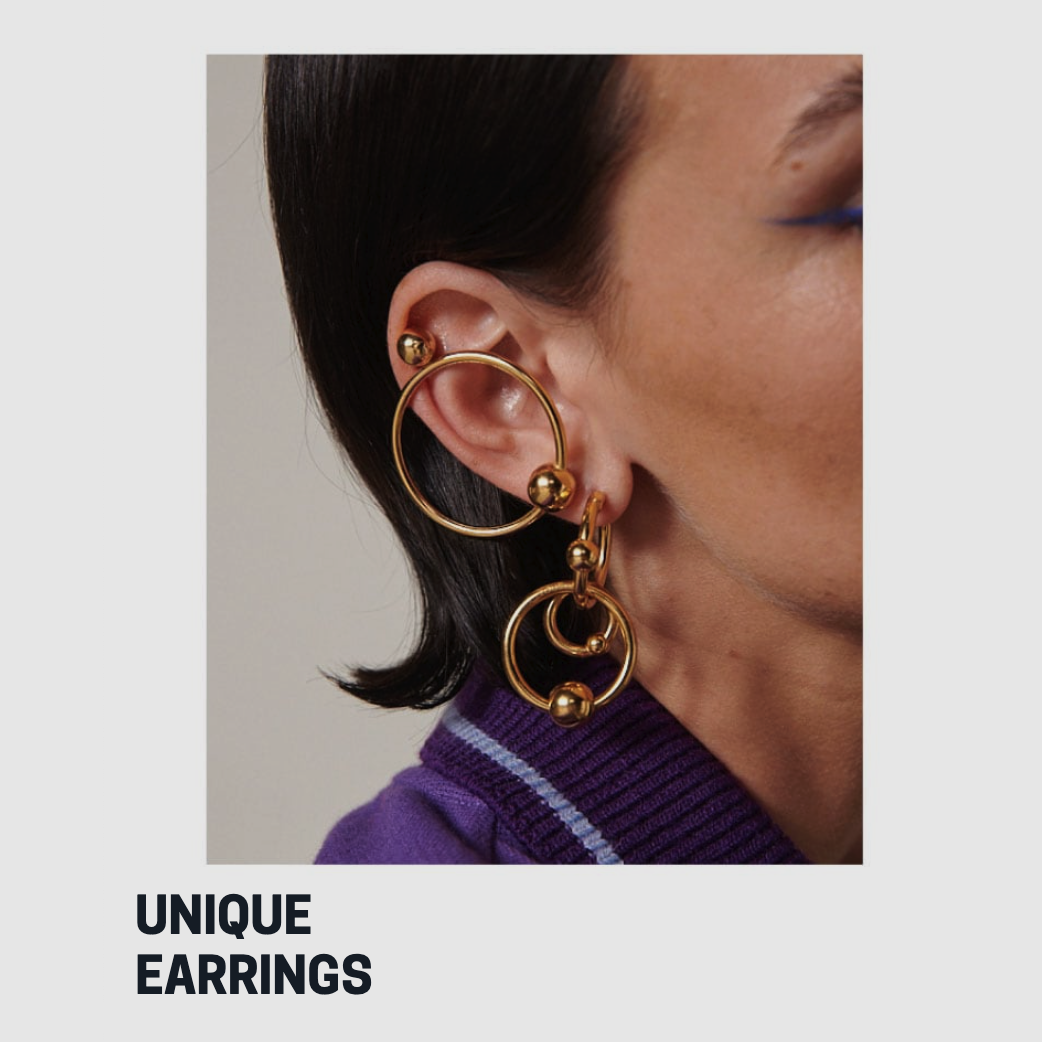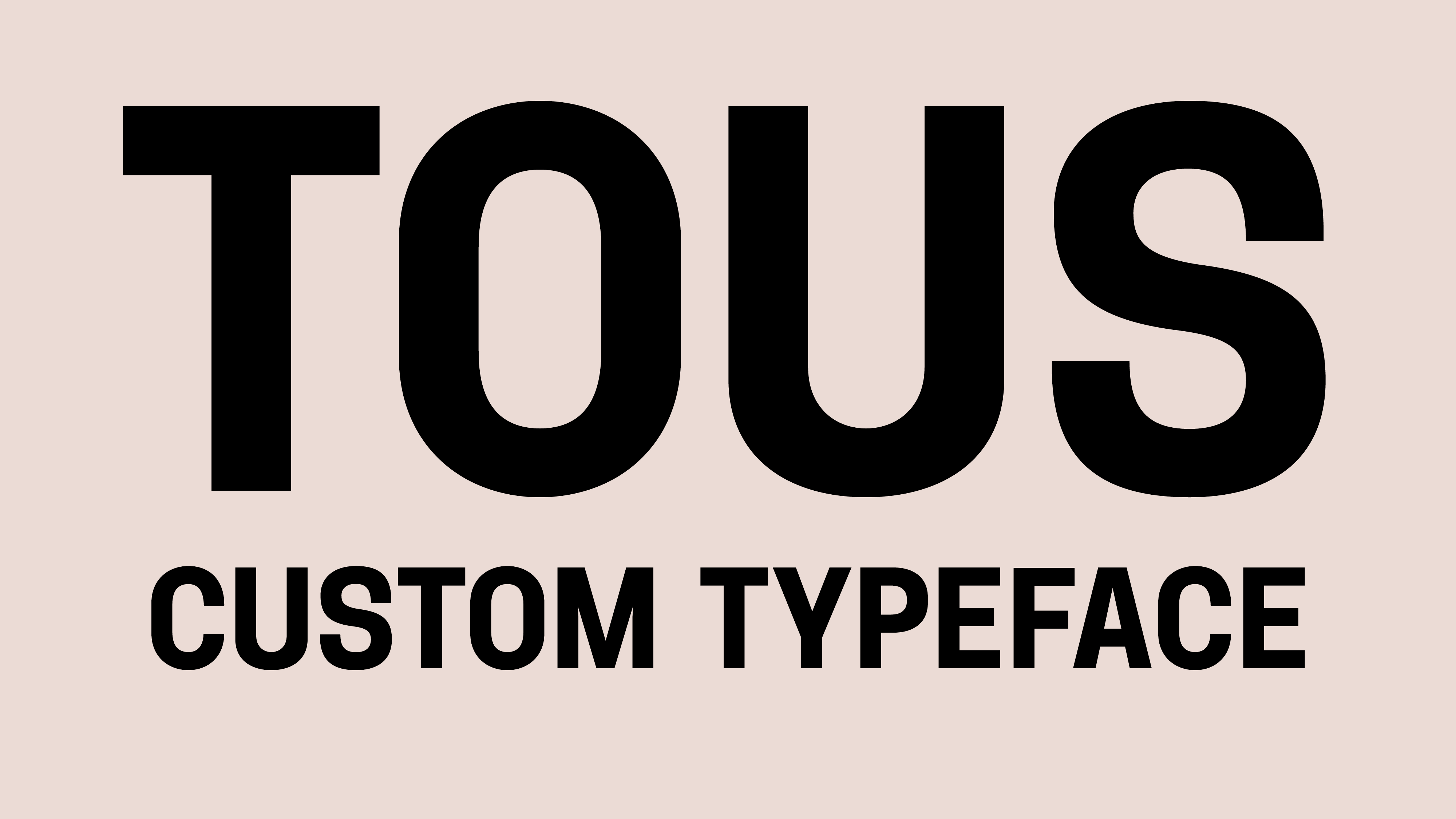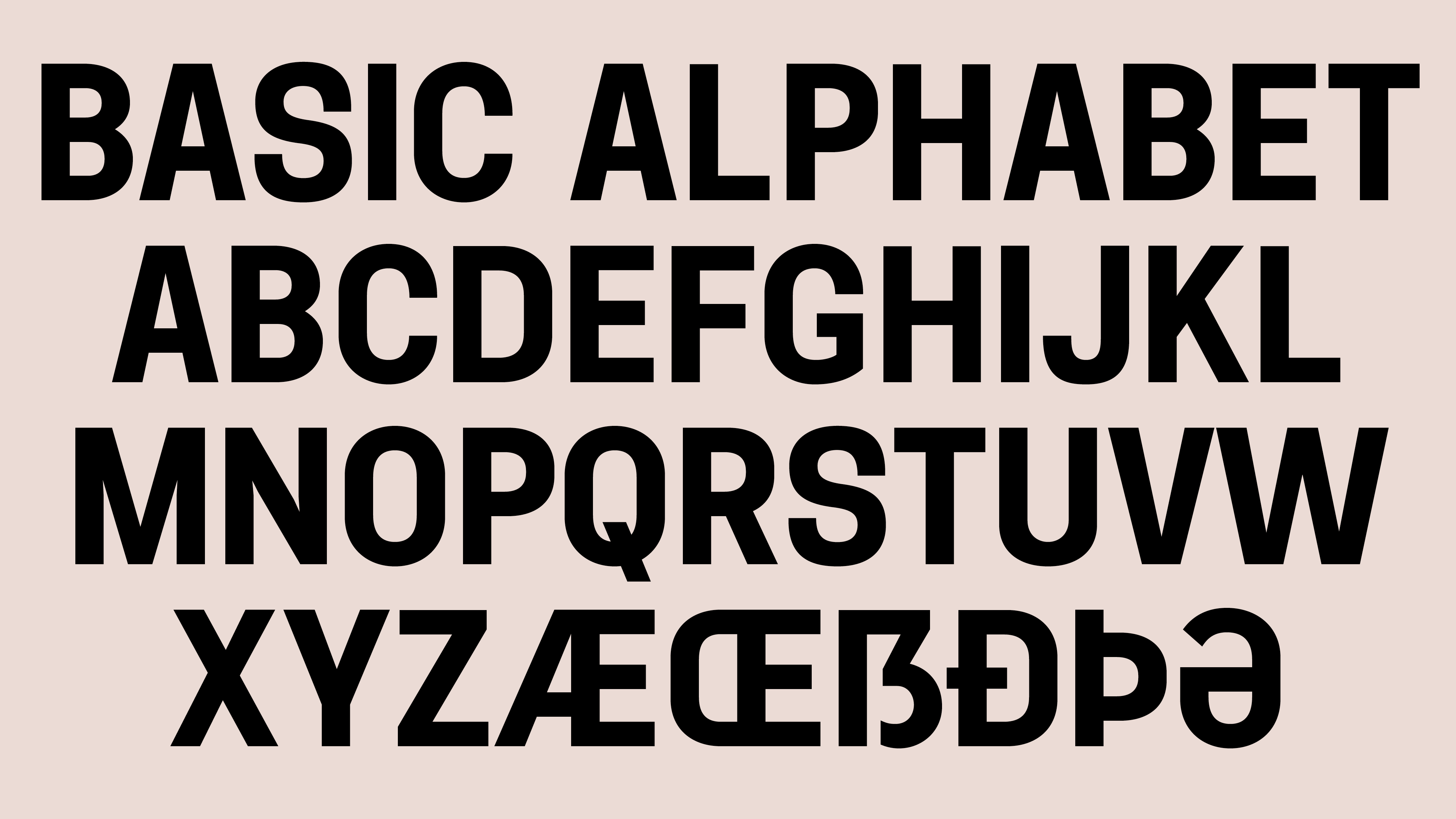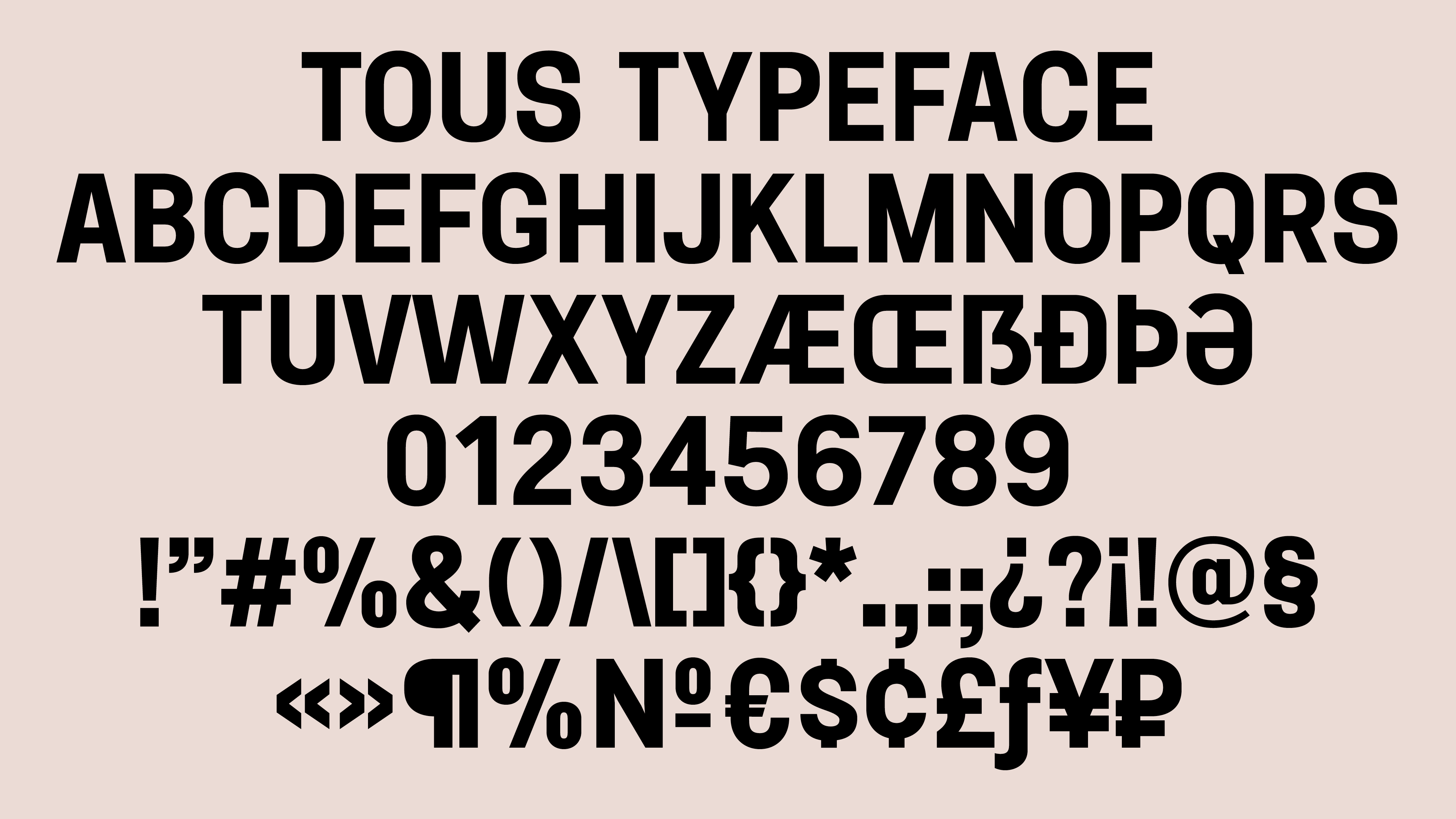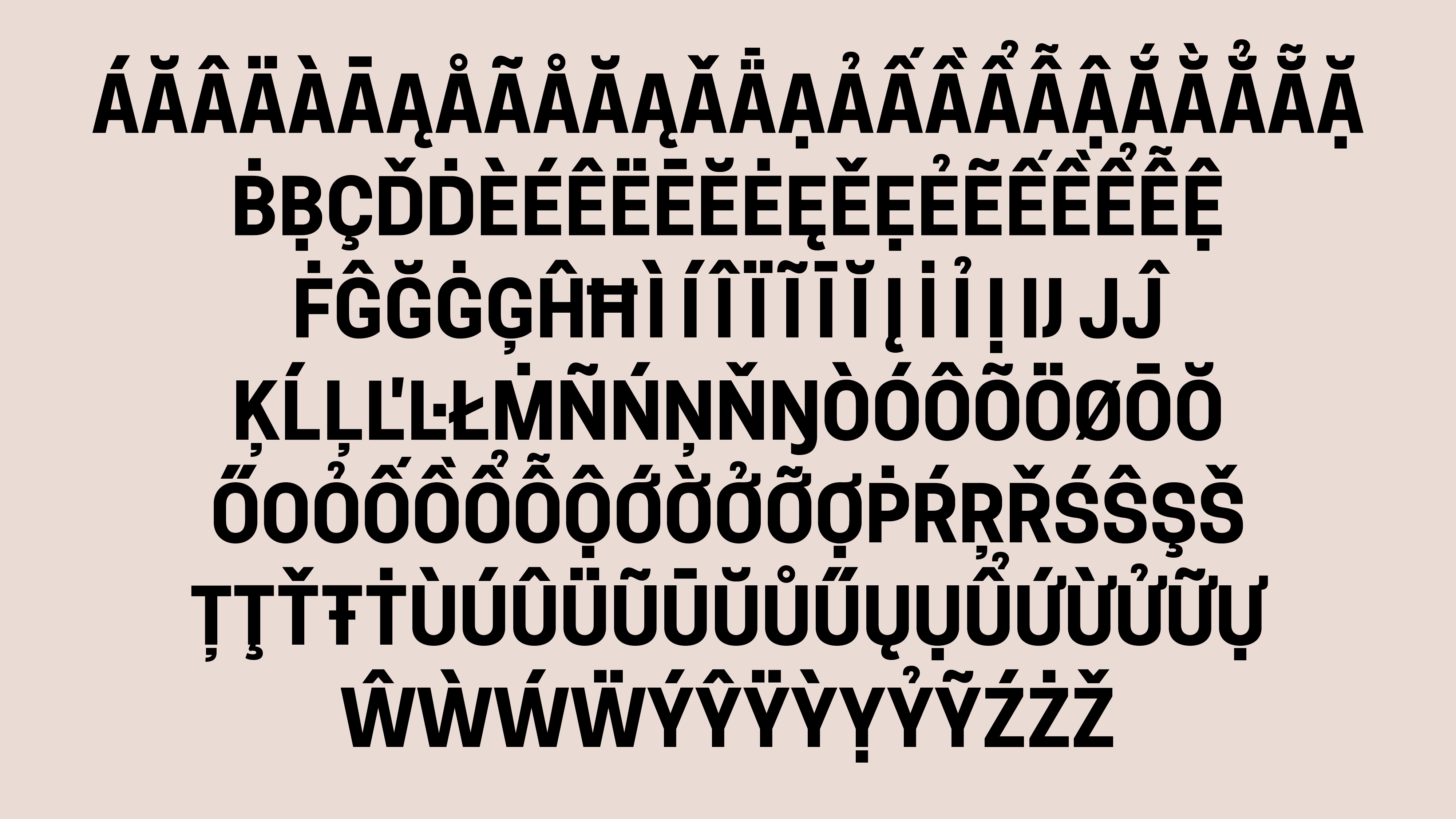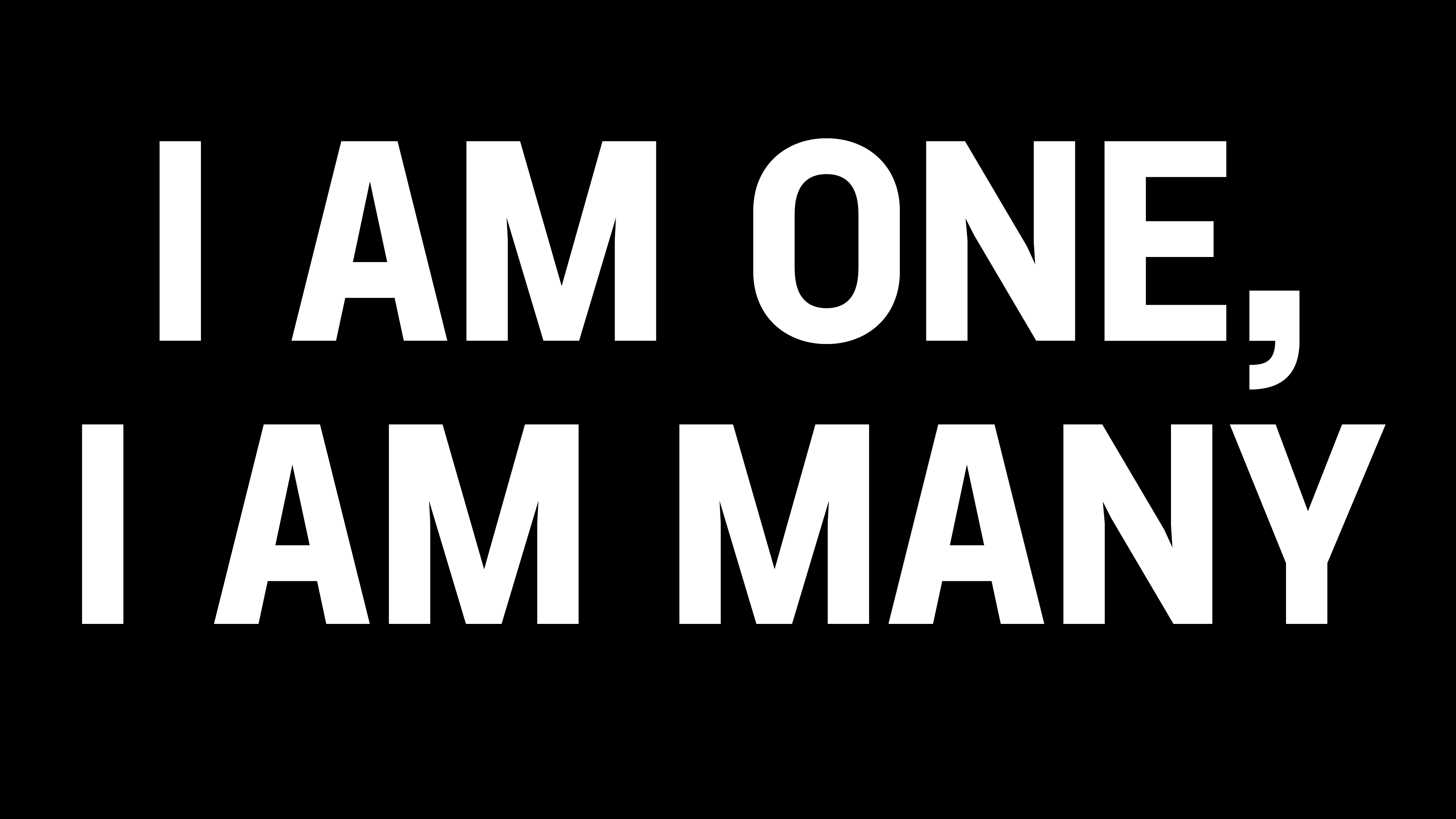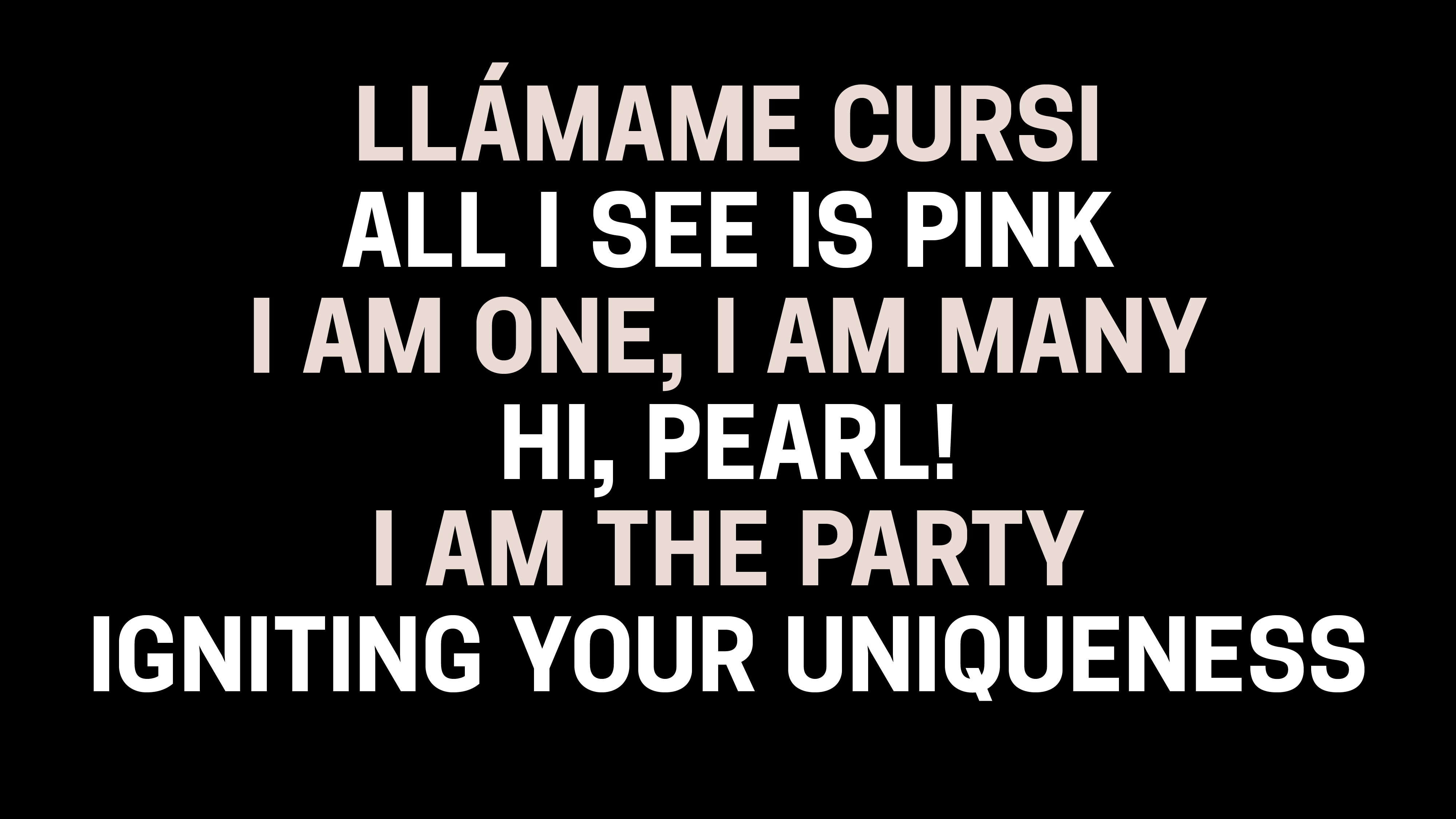
A custom typeface for the rebranding of TOUS, one of the most prominent jewelry, accessories, and fashion firm from Spain, and well-established worldwide.
TOUS is a contemporary sans serif typeface, with a single style in bold weight, slightly condensed, and without lowercase letters. It is based on the four letters logo designed by Ruiz Company in collaboration with Mirinda Company Studio. On a formal level, it is made up of geometric stems and arches. These characteristics give sturdiness, clarity, and identity to the TOUS brand, serving both in the redesign of the identity and for brand communication at a global level.
With a custom typeface, TOUS can have a unique, memorable, and aesthetic point of view, expressing itself in its own voice and in any media: in ads, packaging, social media platforms… etc.
The initial assignment was expected to cover the most used languages based on the Latin alphabet, and the final outcome comprised a character set that covers all languages that are based on the Latin alphabet, including all those used in Western Europe, Central Europe, and Southeastern Europe, as well as Vietnamese. TOUS typeface has no lower case, but a complete set of numerals (aligned, superior, inferiors, numerators and denominators) plus fractions. It also has ordinals and alternate punctuation (smaller size for extra big headlines).
As a second phase of the project we worked in the consultancy for pairing typefaces at two levels:
1. Selecting a complementary Latin serif typeface as a secondary option. Laura customized Nimbus (an open-source typeface) for this purpose.
2. Pairing TOUS and Nimbus with available typefaces for other scripts: Cyrillic, Hebrew, Arabic, Traditional Chinese, Simplified Chinese, and Japanese.
Client: TOUS
Branding Agency: Ruiz Company in collaboration with Mirinda Company Studio
Type designer: Laura Meseguer
Engineering: Joancarles Casasín